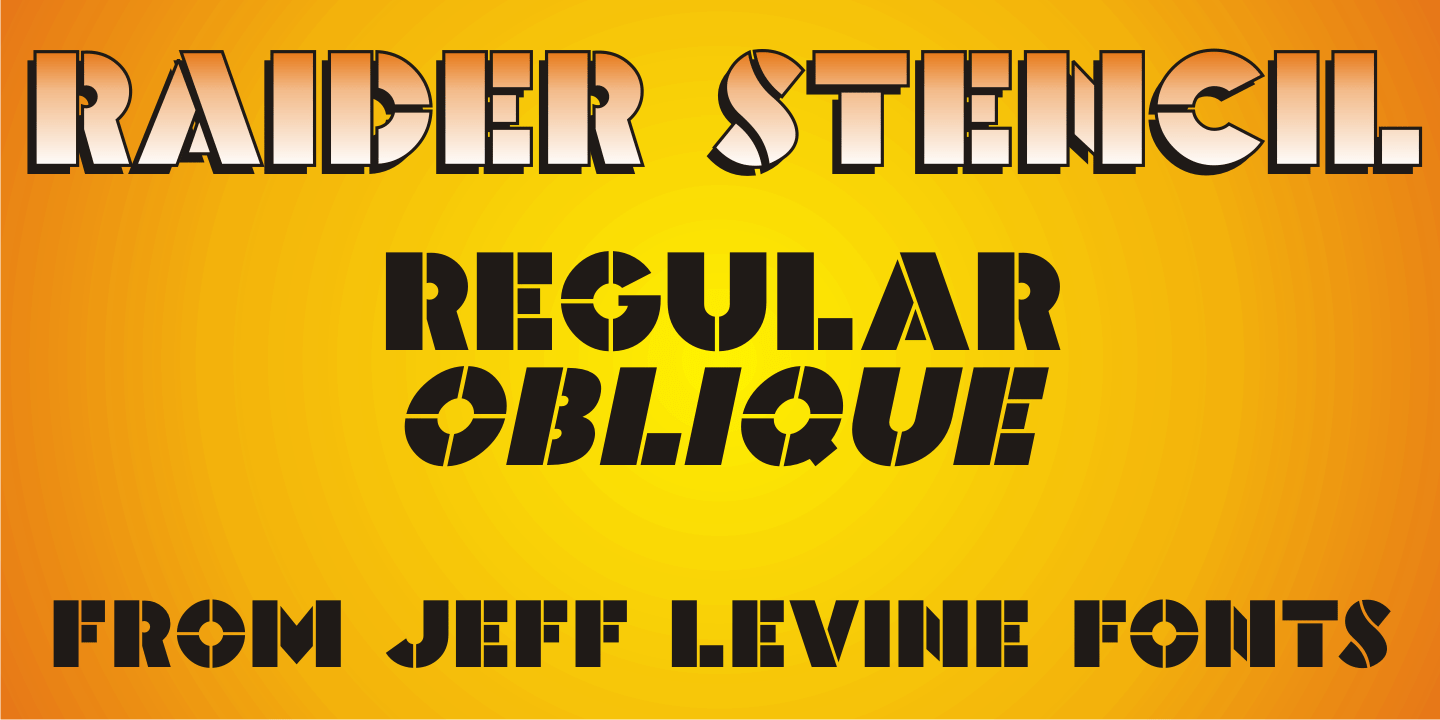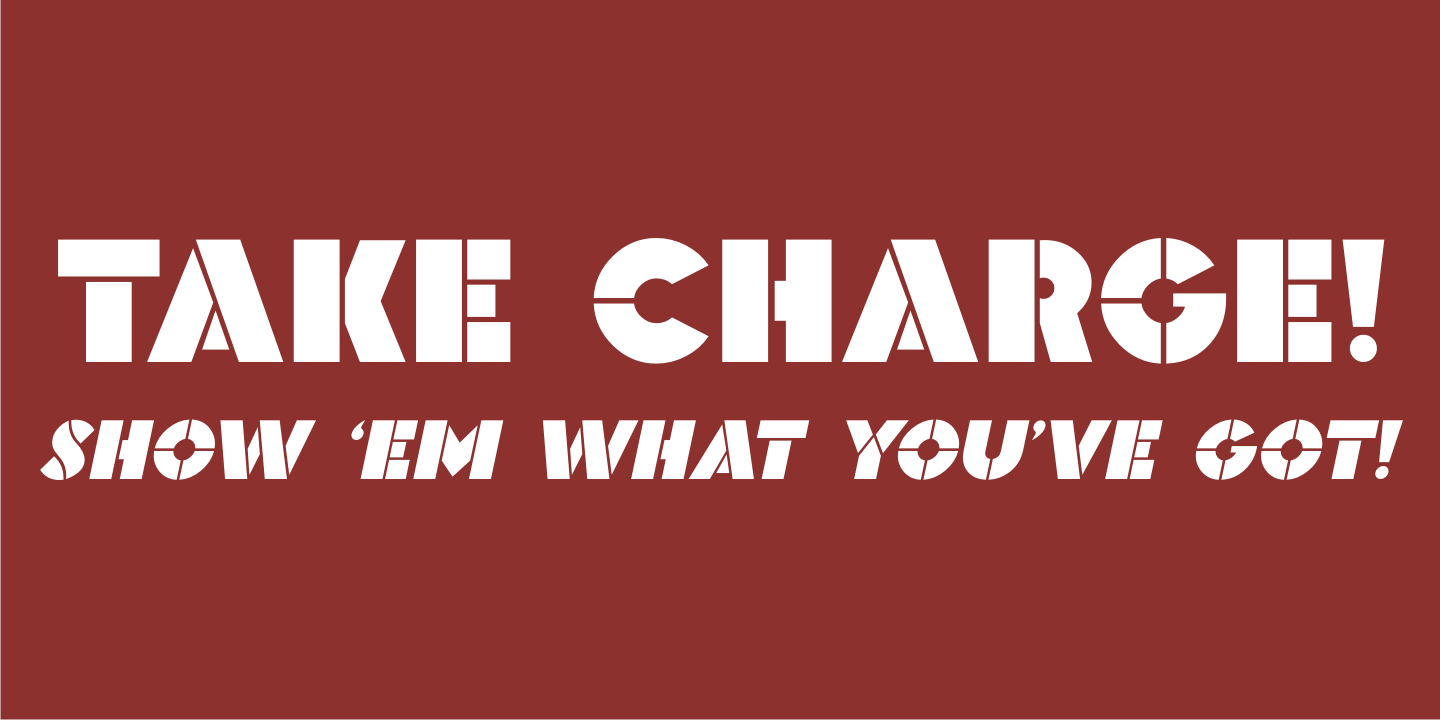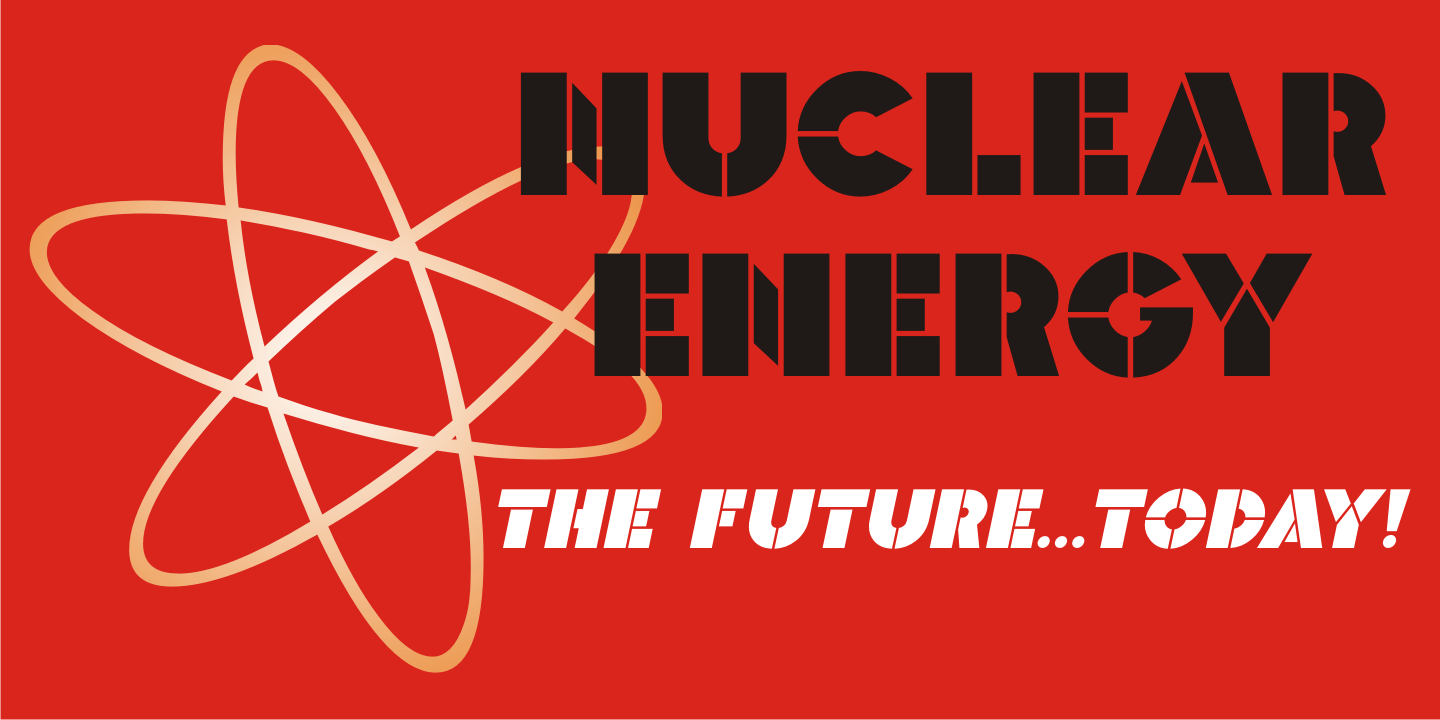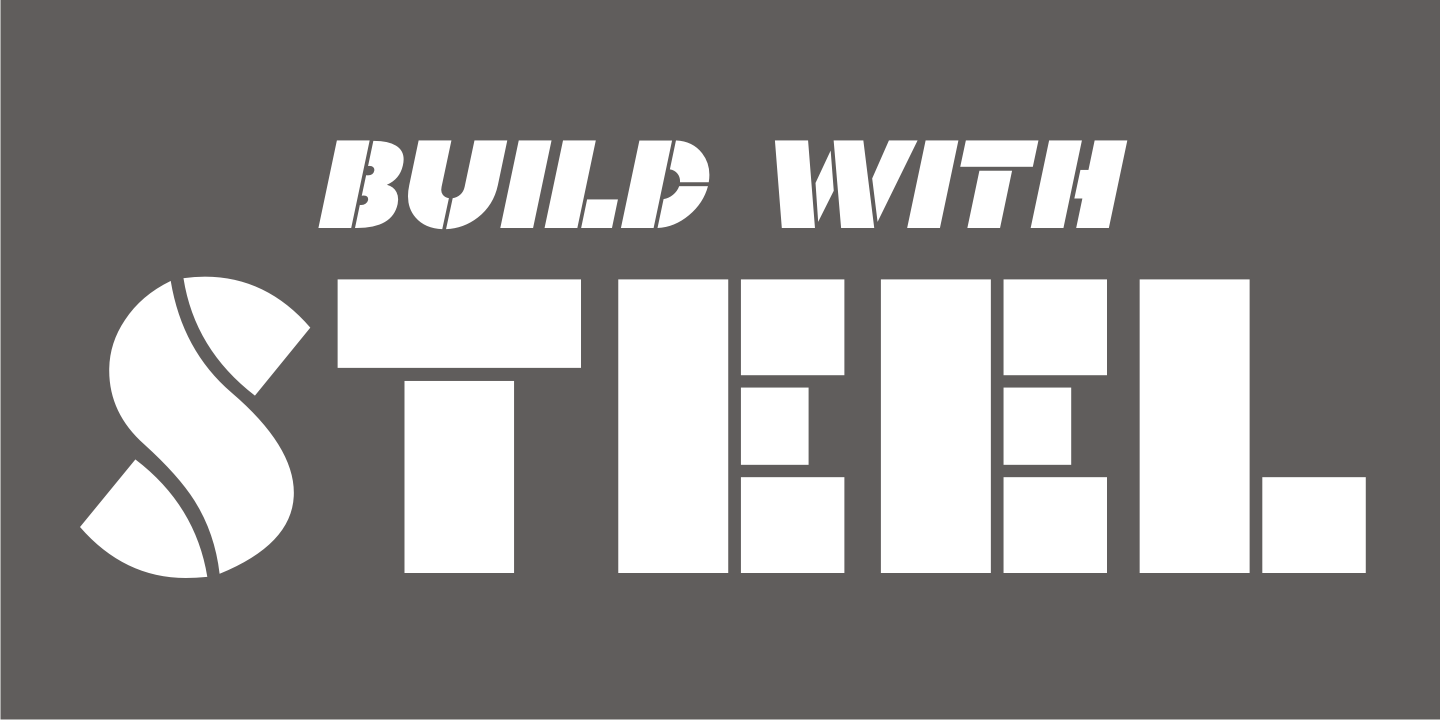
Raider Stencil
The dust jacket for the 1929 Western novel 'The Raider' by Charles Alden Seltzer featured the title and author's credits in a hand-lettered extra bold stencil design. This became the model for Raider Stencil JNL.